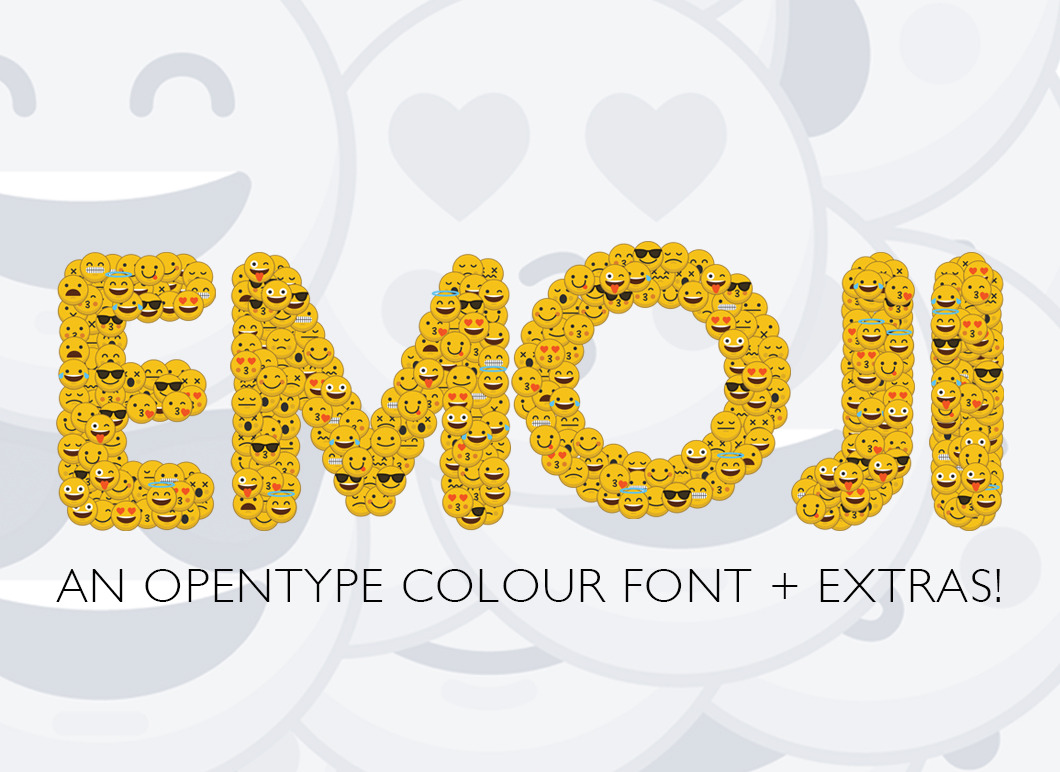
Emoji smiley font
EMOJI FONT They say that a picture tells 1000 words, now you can use words and pictures to say just what you want. EMOJI is a fun font created using multiple emoji character faces. Perfect for bold headers, banners and posters.
The font is a colour OpenType file which means this font will show up only in apps that are compatible with color bitmap fonts, like Adobe Photoshop CC 2017.0.1 It comes as a special OpenType .otf font file, in which each character is encoded with two image formats: OpenType-SVG and SBIX.
This is a bitmap colour font with each character roughly 1000pixels tall.